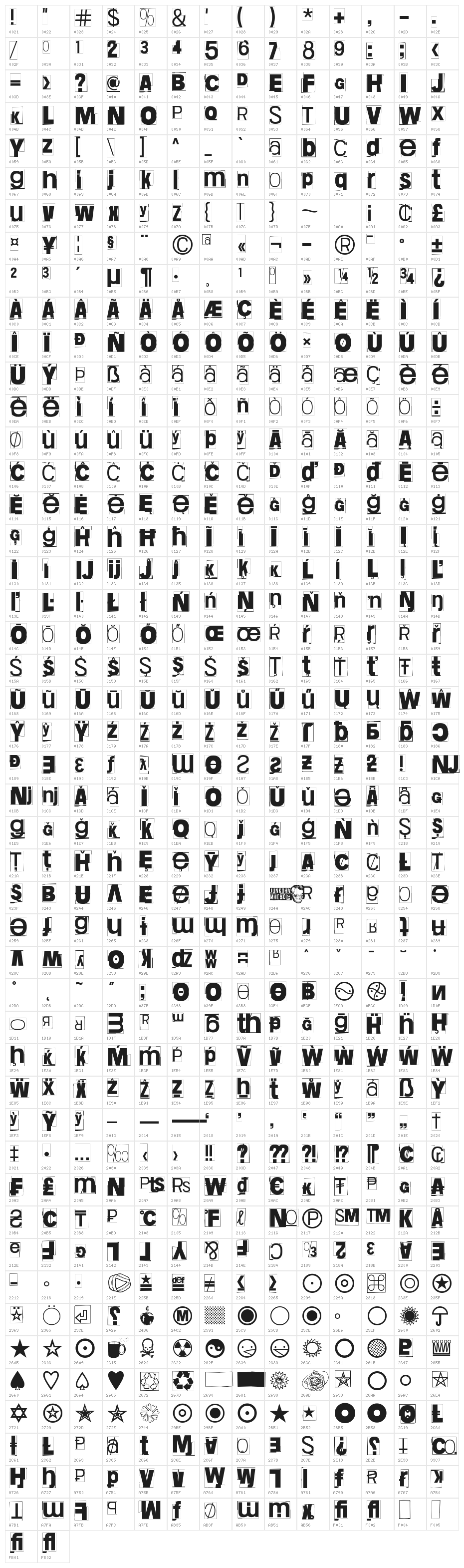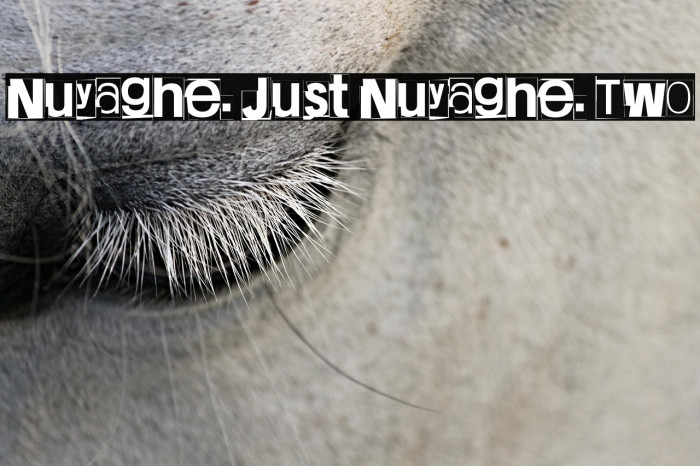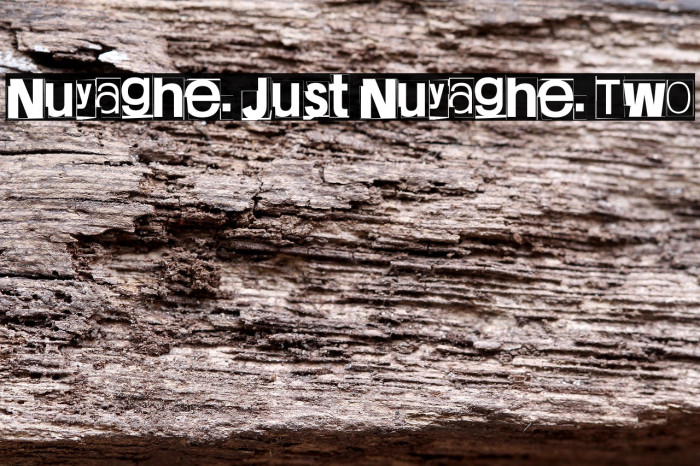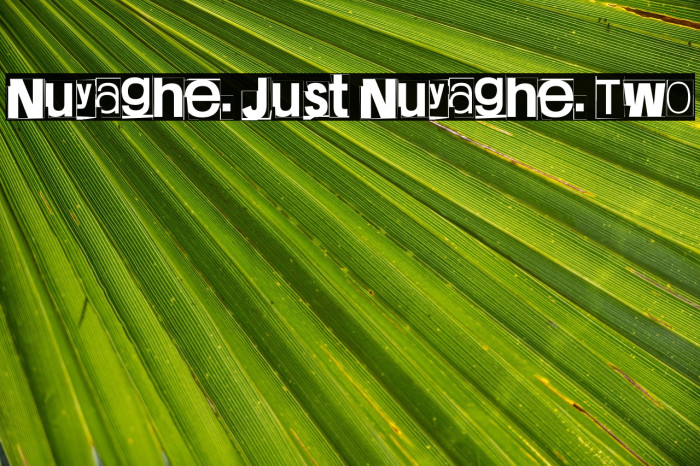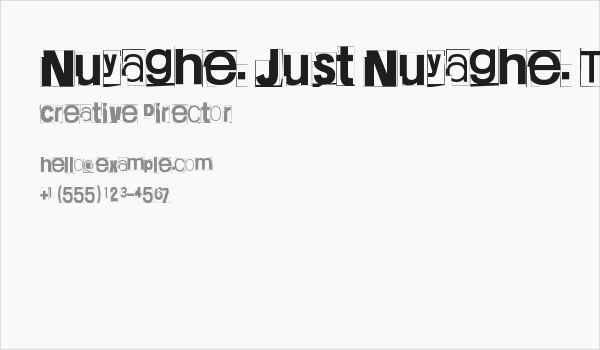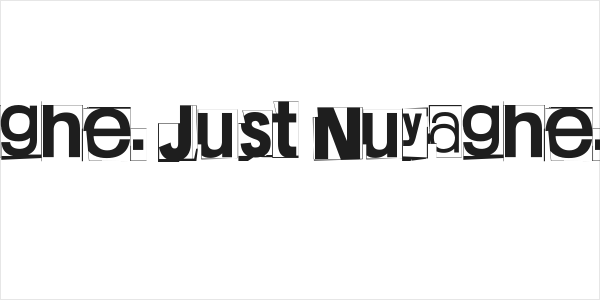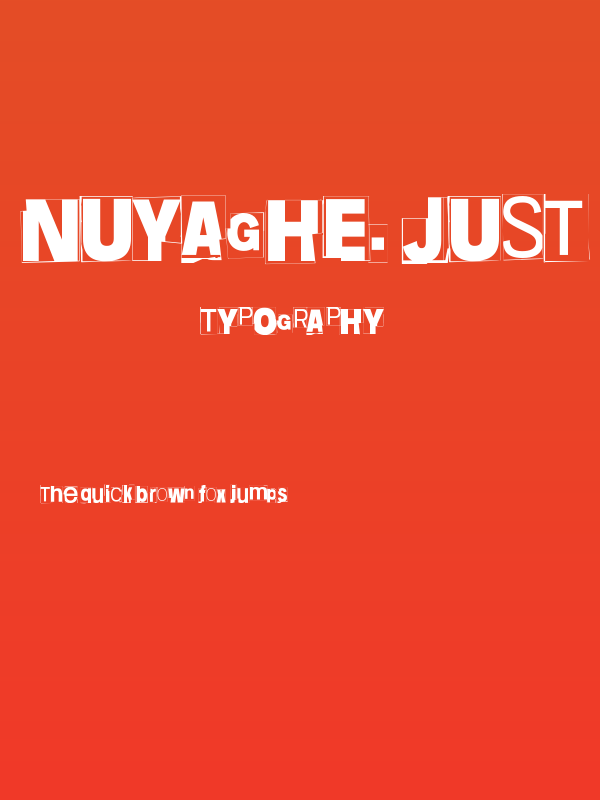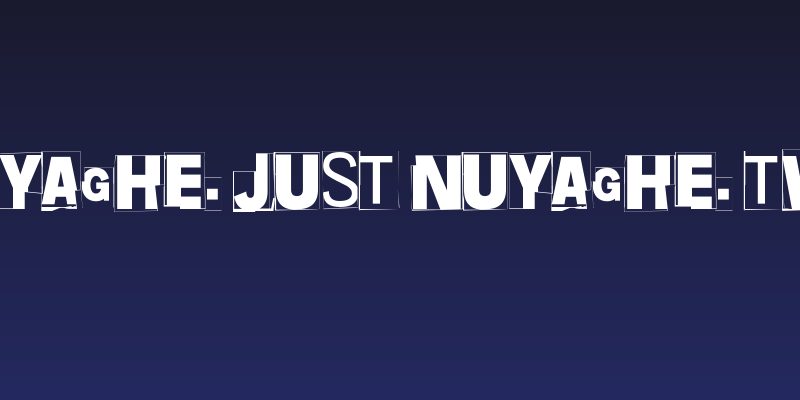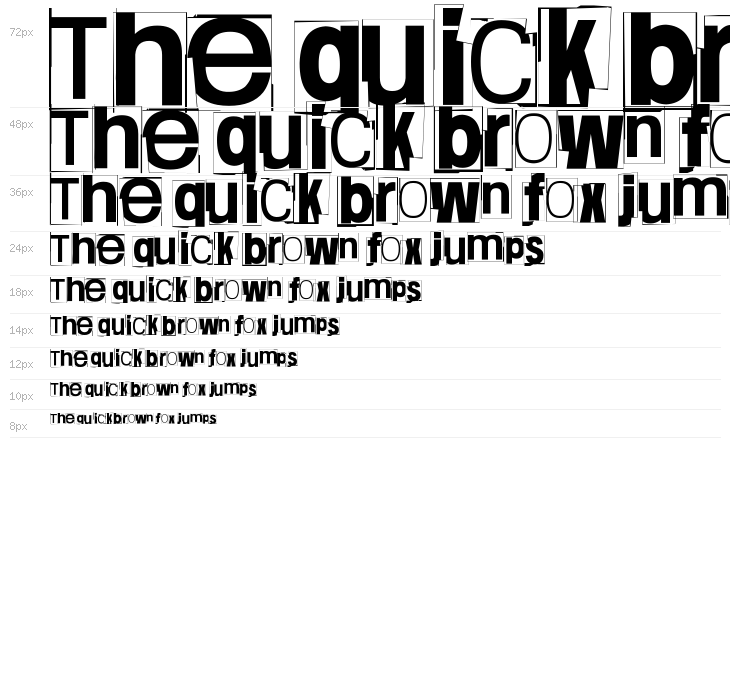
Nuyaghe. Just Nuyaghe. Two Font
Nuyaghe. Just Nuyaghe. Two Description
This font features a bold and eclectic style, reminiscent of cut-out letters from magazines or newspapers. Each character is uniquely styled, with varying shapes and sizes, creating a dynamic and eye-catching appearance. The letters are predominantly uppercase, with a strong emphasis on geometric forms and sharp edges. The font's playful and unconventional design makes it stand out, with a mix of thick and thin strokes that add to its visual interest. The overall look is both modern and retro, suitable for projects that require a bold statement.
| Overall Style | Modern, Retro, Artistic |
| Proposed Projects | Ideal for creative projects such as posters, album covers, and editorial designs that require a bold, artistic touch. |